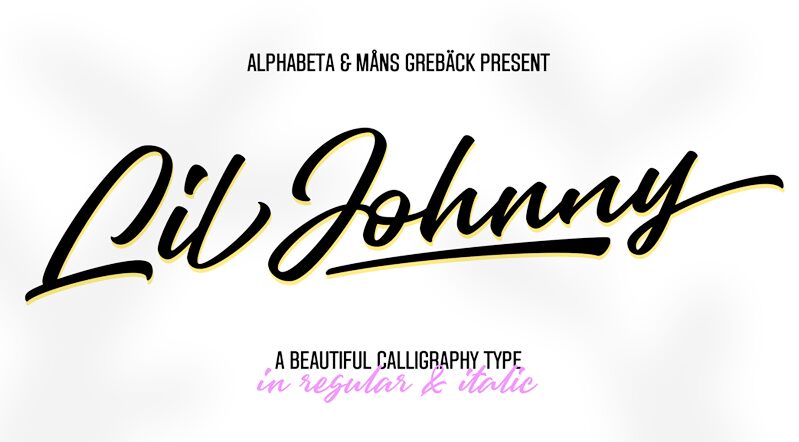
Lil Johnny font is a beautiful calligraphy font designed by Mans Greback.
Use underscore _ anywhere in a word to make an underline.
Example: Love_letter
Use multiple underscores to make different swashes.
Example: Base_____ball
Use numbersign # after any letter to make a swash.
Example: Welcome# Summer#